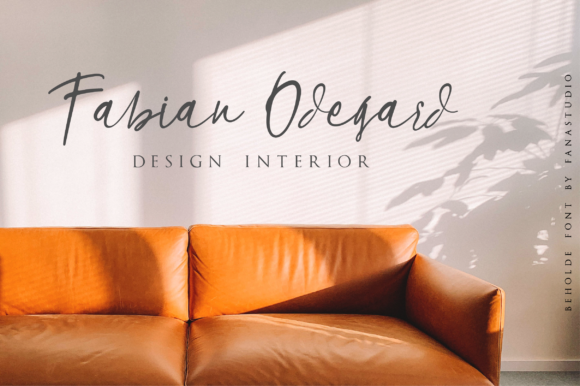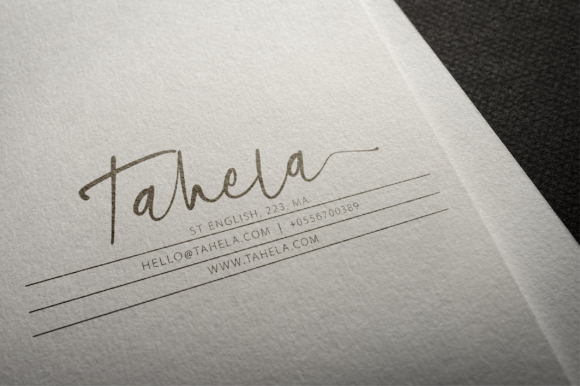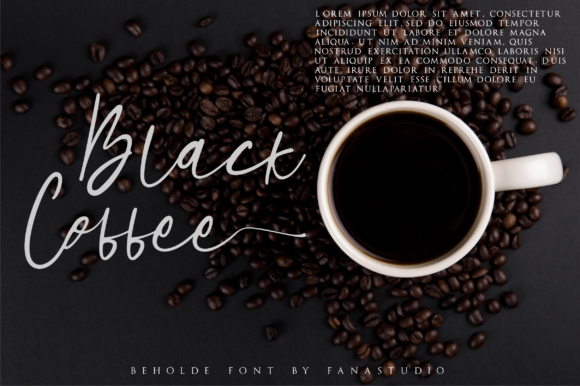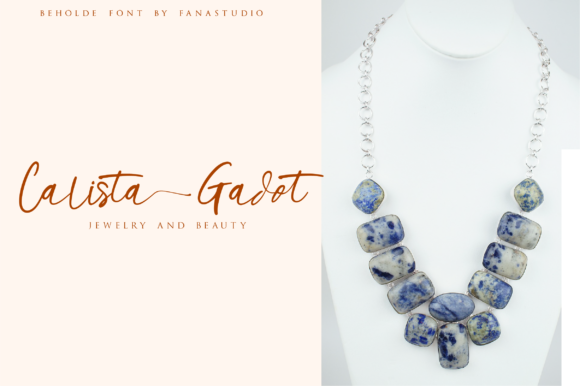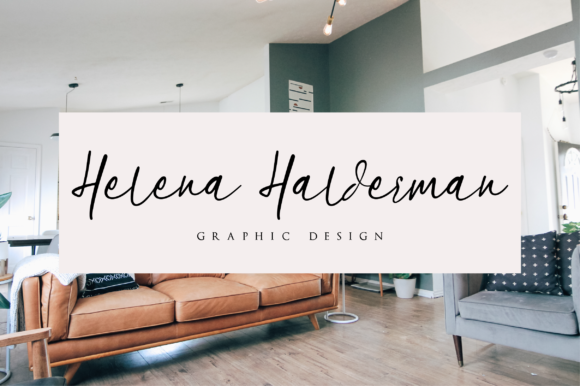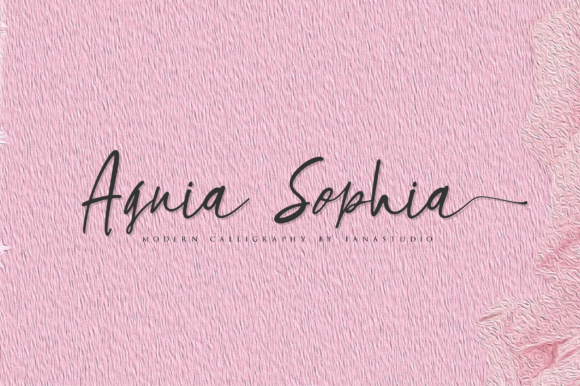
Introducing Beholde Font: A Lovely Handwritten Font with a Stylish and Charming Look
Are you tired of using the same old fonts for your design projects? Do you want to add a personal touch to your work and make it stand out from the crowd? Look no further than Beholde Font, a beautiful handwritten font with a stylish and charming look. In this article, we’ll take a closer look at Beholde Font and explore its features, benefits, and uses.
What is Beholde Font?
Beholde Font is a unique and elegant handwritten font that is perfect for adding a touch of personality to your design projects. With its stylish and charming look, Beholde Font is ideal for a wide range of applications, from crafting and scrapbooking to branding and advertising. This lovely font is designed to make your work stand out and leave a lasting impression on your audience.
Features of Beholde Font
So, what makes Beholde Font so special? Here are some of its key features:
- Handwritten look: Beholde Font has a beautiful handwritten look that adds a personal touch to your work.
- Stylish and charming: This font has a stylish and charming look that is sure to impress your audience.
- Unique and elegant: Beholde Font is a unique and elegant font that will make your work stand out from the crowd.
- Versatile: This font is perfect for a wide range of applications, from crafting and scrapbooking to branding and advertising.
Benefits of Using Beholde Font
So, why should you use Beholde Font for your design projects? Here are some of the benefits of using this lovely font:
- Adds a personal touch: Beholde Font adds a personal touch to your work, making it more relatable and engaging.
- Improves readability: This font is easy to read and understand, making it perfect for body text and headings.
- Increases creativity: Beholde Font’s unique and elegant look will inspire your creativity and help you come up with new ideas.
- Perfect for branding: This font is ideal for branding and advertising, as it helps to create a unique and memorable identity for your business.
Uses of Beholde Font
Beholde Font is a versatile font that can be used for a wide range of applications, including:
- Crafting and scrapbooking: This font is perfect for crafting and scrapbooking projects, such as card making, journaling, and photo albums.
- Branding and advertising: Beholde Font is ideal for branding and advertising, as it helps to create a unique and memorable identity for your business.
- Graphic design: This font can be used for graphic design projects, such as brochures, flyers, and posters.
- Digital design: Beholde Font can be used for digital design projects, such as website design, social media graphics, and email marketing.
| Font Name | Beholde Font |
| Author | fanastudio |
In conclusion, Beholde Font is a lovely handwritten font with a stylish and charming look. With its unique and elegant design, Beholde Font is perfect for adding a personal touch to your design projects. Whether you’re a designer, crafter, or business owner, Beholde Font is a great choice for your next project. So why not give it a try and see the difference it can make?